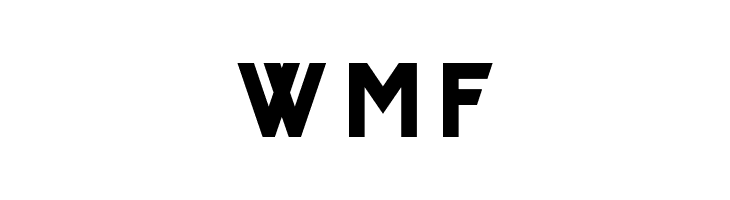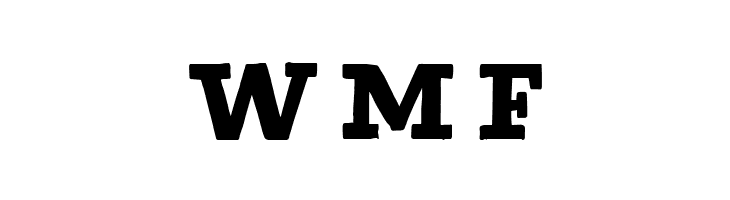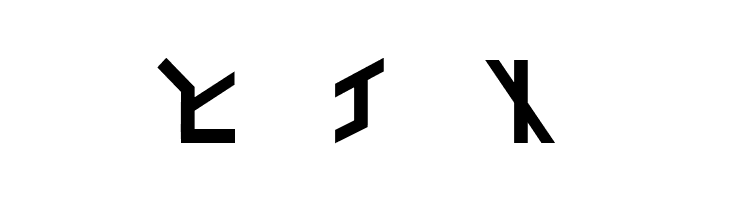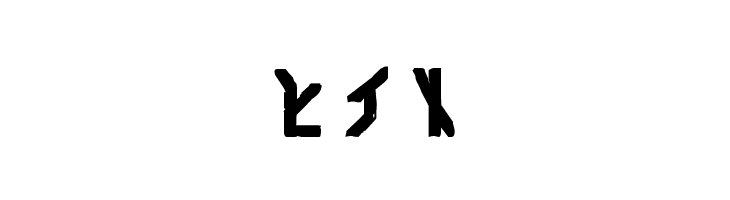
A bold, geometric font with a strong, commanding presence.
A bold, narrow font with high contrast and tight spacing, perfect for impactful headlines.
A thin, elegant font with a handwritten touch and consistent stroke width.
A bold, pixelated font with a retro, digital aesthetic.
A pixelated, monospaced font with a retro digital aesthetic.
A bold, flowing script font with elegant and dynamic strokes.
A bold, distressed font with a textured, grunge effect for a rugged, vintage look.
Casual handwritten script with smooth, flowing strokes and slight slant.
Casual handwritten script with smooth, flowing strokes.
A bold, angular font inspired by ancient runic alphabets, perfect for decorative use.
A bold, italicized font with angular, runic-inspired design.
An angular, italicized font with a runic, ancient script style.
A bold, angular font with a runic, stone-carved aesthetic.
A bold, geometric font with a modern and cohesive design.
A bold, dynamic font with thick, rounded strokes and a slanted style.
A playful, bold font with rounded, thick strokes and a whimsical touch.
A bold, cursive font with dynamic curves and expressive loops.
A bold, dynamic script font with interconnected letters and elegant flourishes.
A futuristic, geometric font with sharp angles and bold lines.
A bold, impactful font with thick, block-like characters.